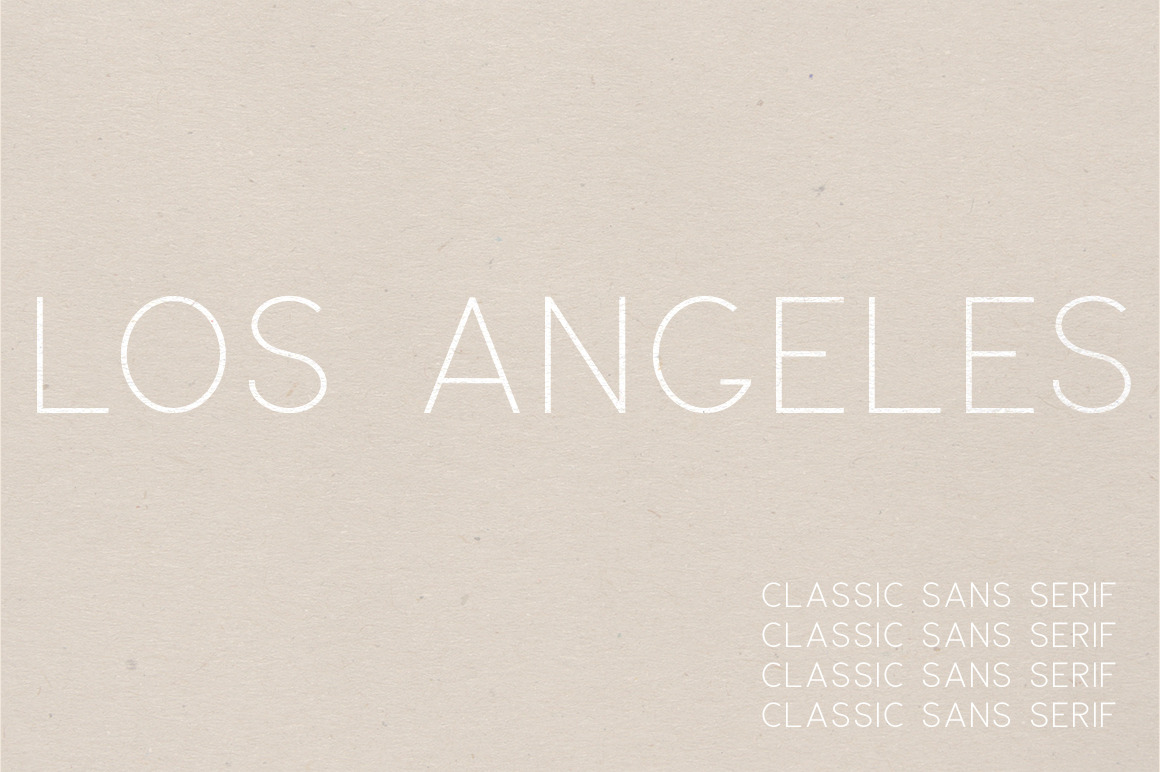
Los Angeles is a gorgeous sans serif font that will easily become a classic typeface in your library. It features stunning clean lines, excellent versatility, and three weights to suit every project.